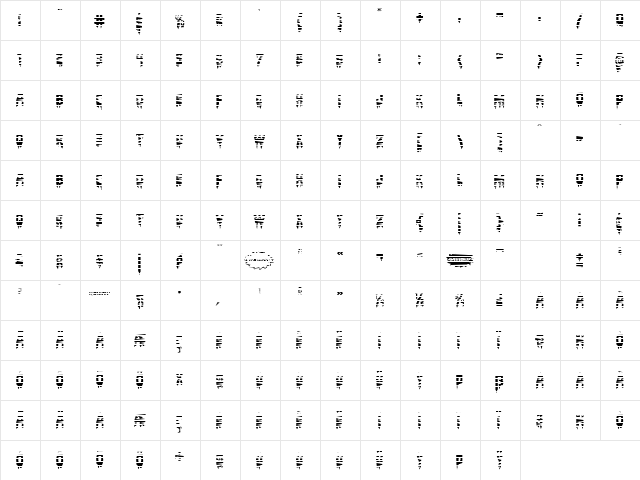
Bloodlust Gradient Regular
Design Context for Bloodlust Gradient Typeface
Bloodlust Gradient carries an unsettling edge — its distorted letterforms are built to unsettle, perfectly suited to horror, Halloween, and dark creative work.
Perfect for anything that needs to unsettle — game titles, horror branding, and macabre invitations.
Font Pairing: Pair with a clean neutral sans-serif for body copy to let Bloodlust Gradient's character lead without overwhelming the composition.
Pro Tip: Use Bloodlust Gradient at larger display sizes for maximum impact. Consider generous tracking to let the disturbing character of each letterform breathe.